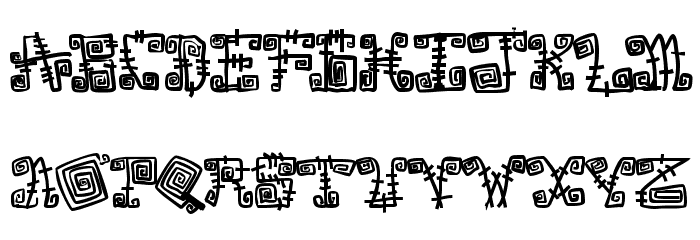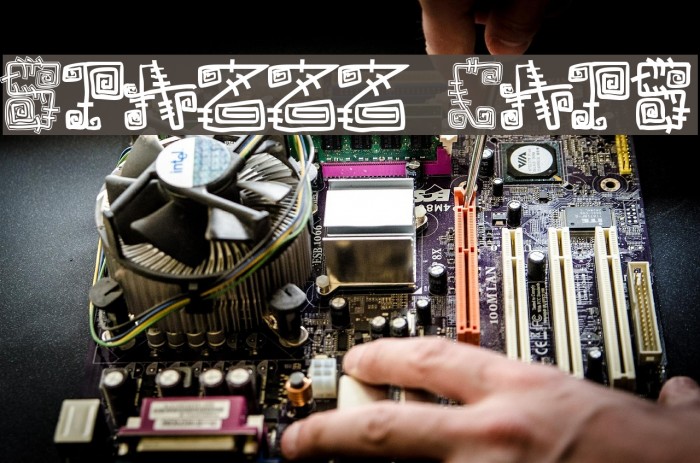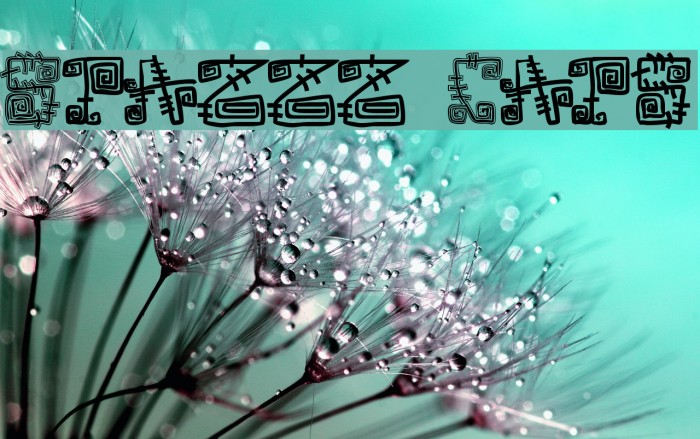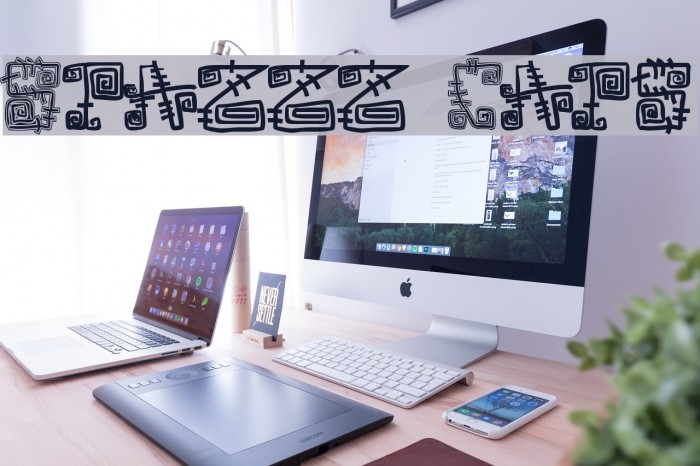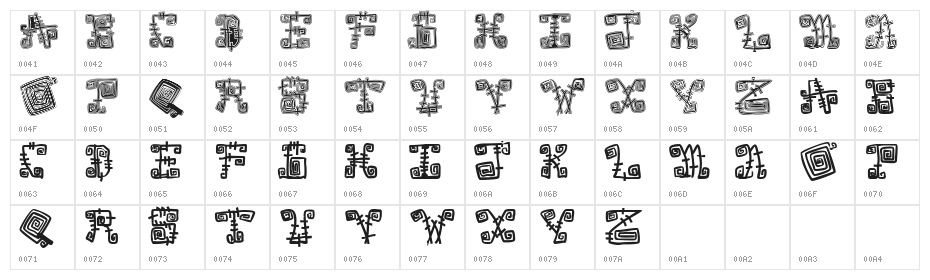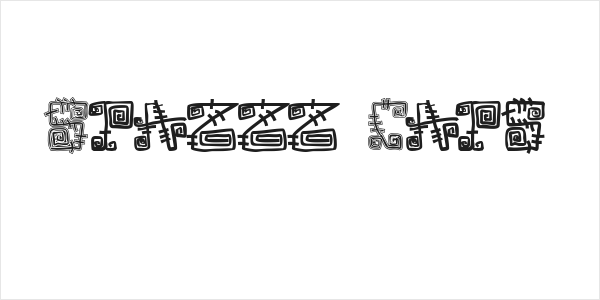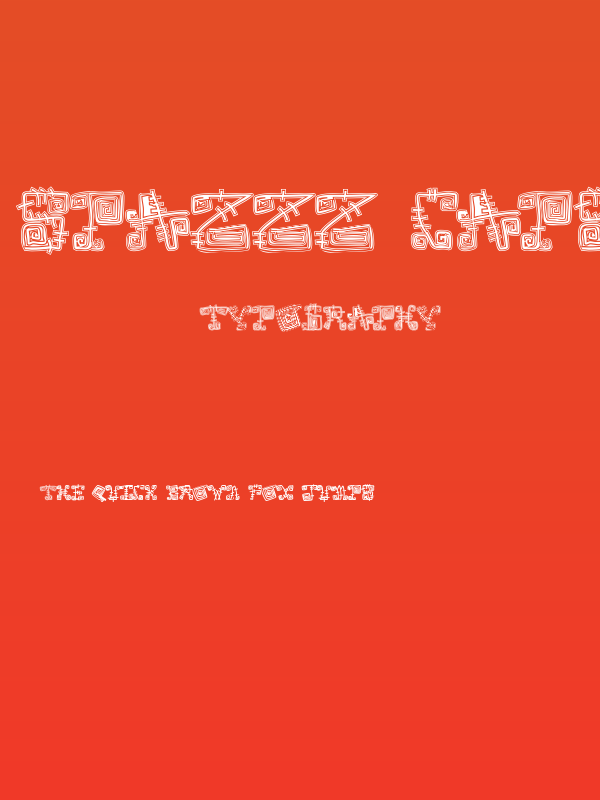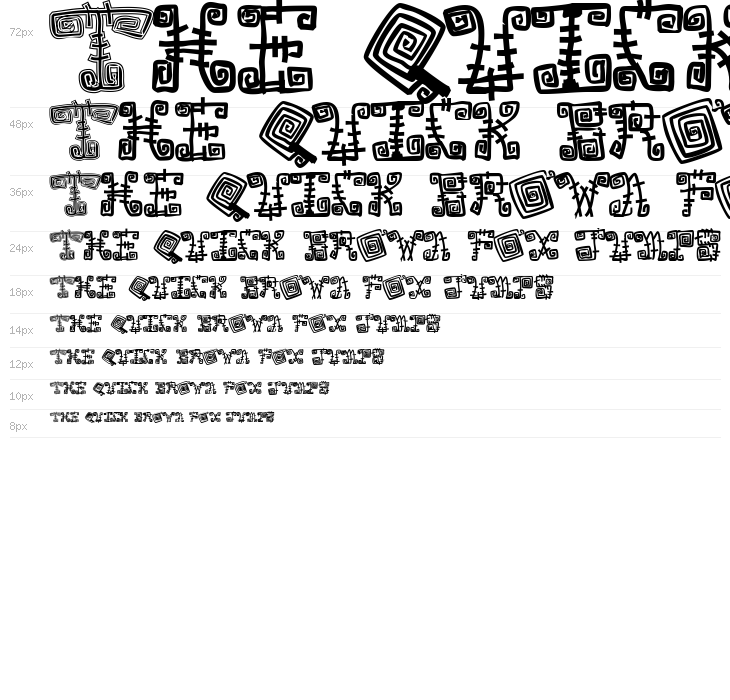
Spazzz Caps Font
This font is a highly decorative and whimsical typeface characterized by its intricate, maze-like patterns within each letterform. The design features bold outlines and complex internal details, creating a sense of movement and chaos. Each character is unique, with swirling lines and geometric shapes that give it an artistic and playful appearance. The font's style is reminiscent of abstract art, making it stand out as a statement piece. It is not suitable for body text due to its complexity but works well for creative projects where a bold, artistic expression is desired.
A decorative, maze-like font with intricate patterns and bold outlines.
- Font: Spazzz Caps
- Proposed Projects: Ideal for artistic posters, album covers, creative branding, and unique invitations.
- Use Case: Logos, Posters, Artistic Projects